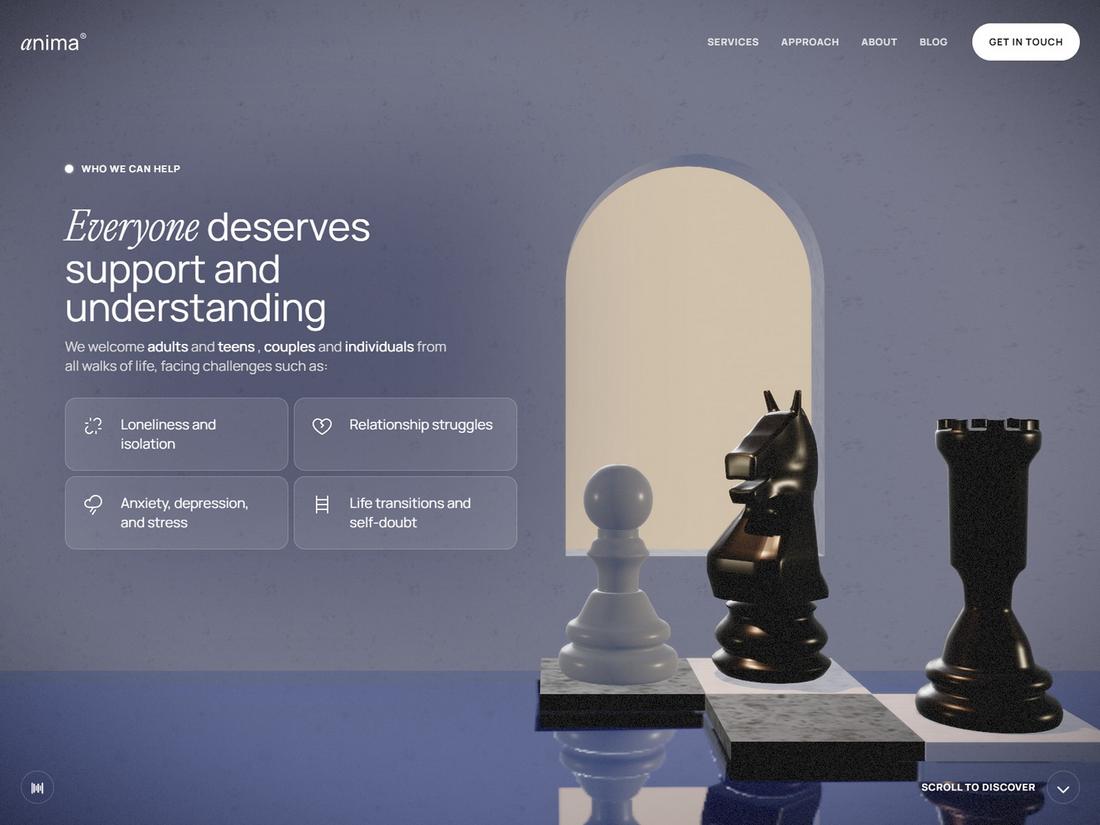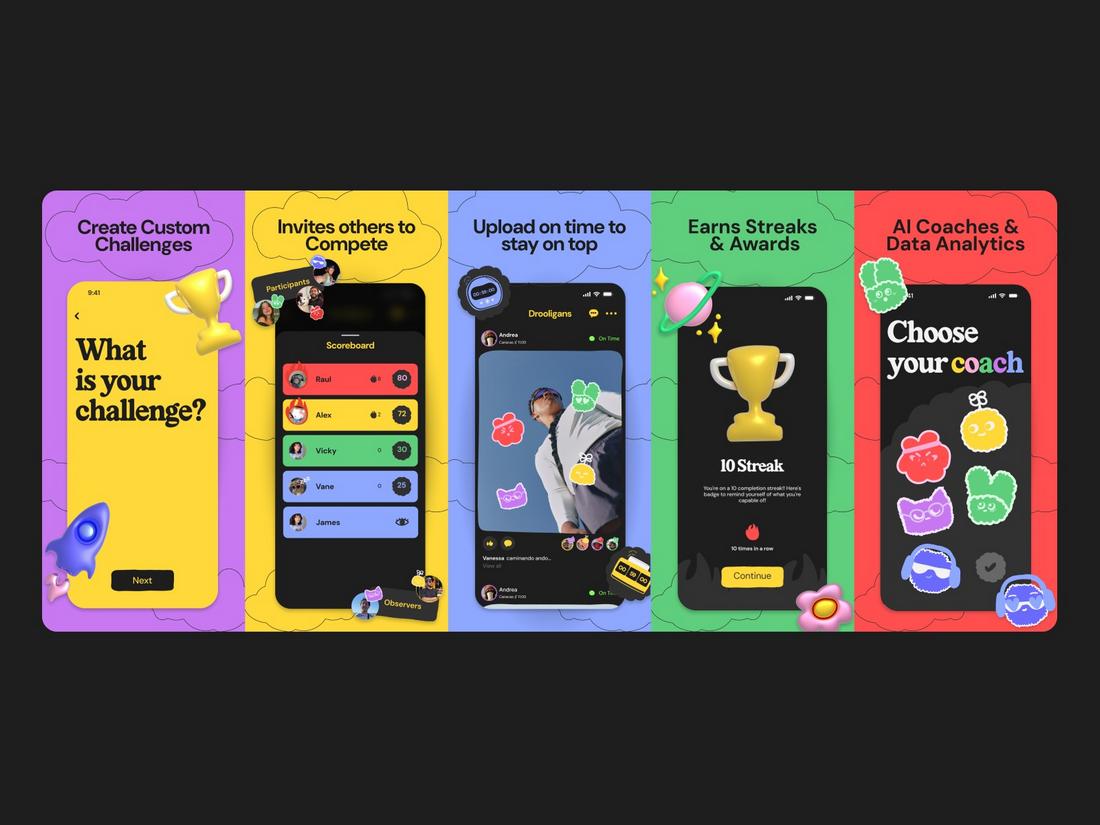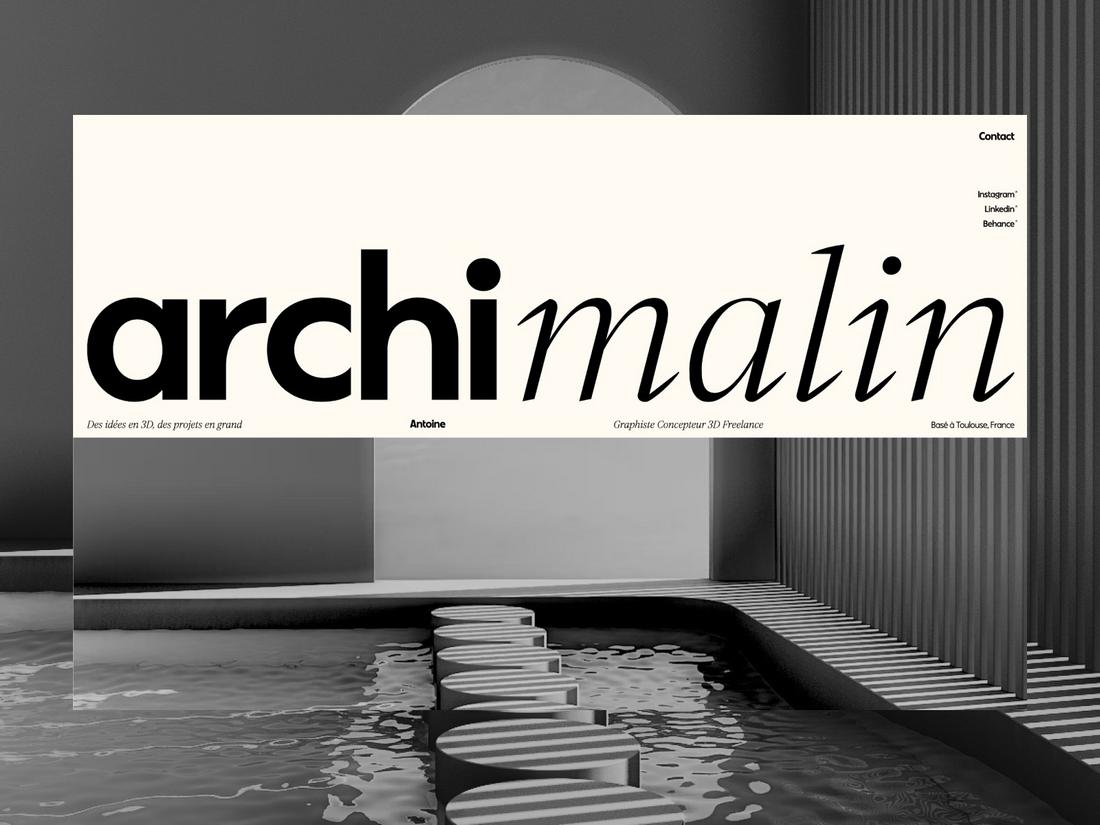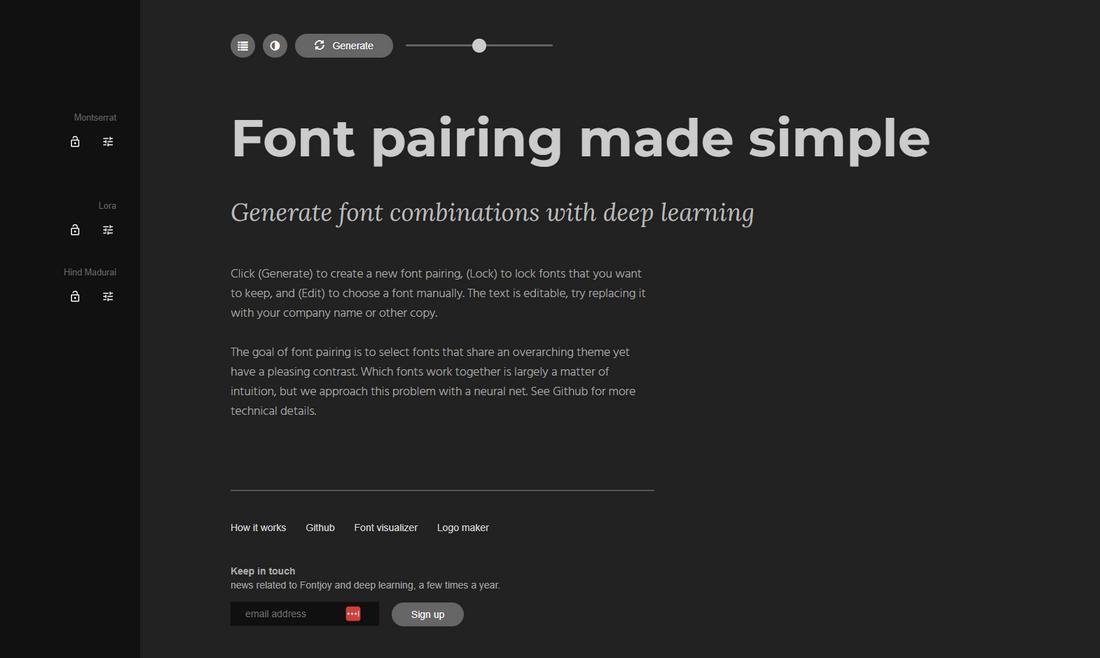
For digital-first brands, typography isn’t just a style choice, it’s a core part of how the brand communicates across screens.
The right font pairing can create hierarchy, improve readability, and define the brand’s tone without saying a word.
But with so many fonts to choose from, combining them effectively can be tricky.
Whether you’re building a design system, creating social content, or launching a responsive website, strong font pairing gives your visuals clarity and consistency.
In this guide, we’ll explore practical font pairing techniques to help digital-first brands look sharp, readable, and uniquely original.
Why Font Pairing Matters in the Digital Space
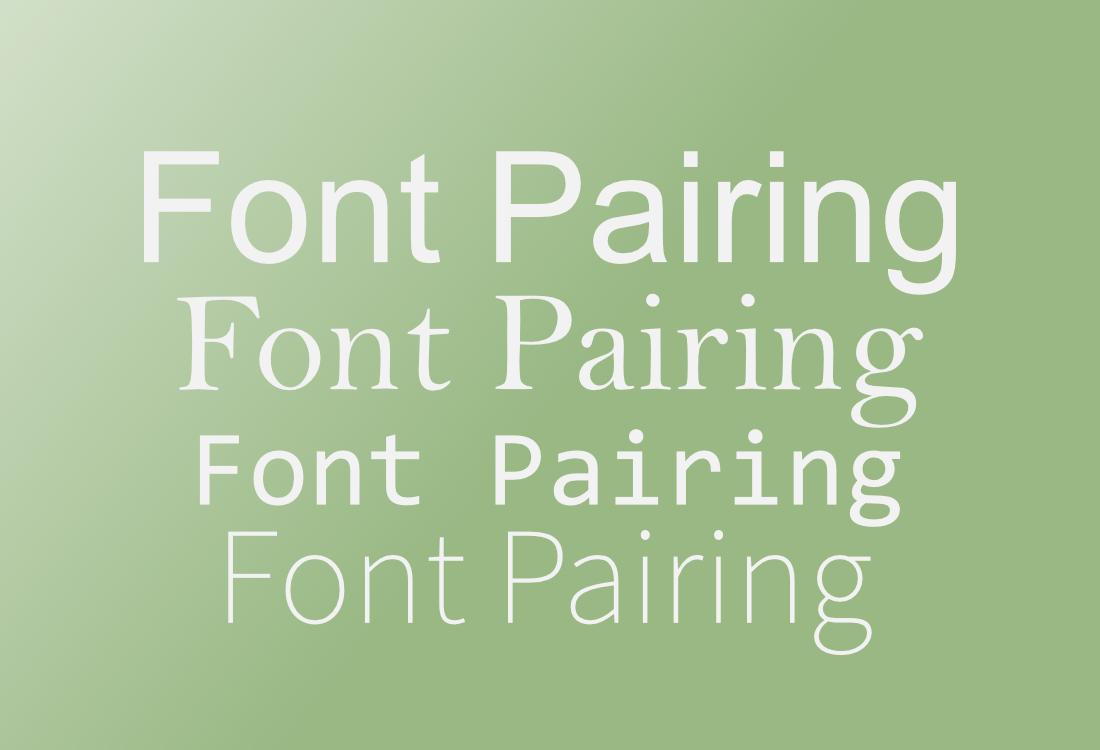
Digital-first brands rely on type to do a lot of heavy lifting, often more than traditional print-focused brands.
Text has to be readable on different screen sizes, responsive within layouts, and optimized for both quick scanning and longer reads.
Over 70% of global brands have invested in custom font creation for unique branding.
Good font pairing can:
- Guide users through content with a clear visual hierarchy
- Help users identify brand voice and personality at a glance
- Ensure consistency across multiple platforms (web, mobile, social, etc.)
- Reduce visual clutter and improve user experience
That’s why choosing fonts that not only look good together but also perform well on screens is essential.
Start with Function, Then Build Style
Before jumping into aesthetics, start by thinking about function.
What is each font doing? Is it used for headlines, body copy, buttons, or calls-to-action?
In most digital-first settings, you’ll want to pair at least two roles: a display font for emphasis and a body font for readability.
A good approach is:
- Primary font: used for headlines, hero text, and brand-defining elements. This font can be more expressive or stylized.
- Secondary font: used for body text, UI labels, or paragraphs. It should be simple, highly legible, and perform well at smaller sizes.
For example, pairing a bold serif for headlines with a clean sans-serif for body copy often creates a modern and balanced feel.
Pair Fonts with Clear Contrast
Contrast is key to a successful font pairing. Fonts that are too similar may clash or feel redundant.
Instead, look for differences in style, weight, proportion, or texture. This contrast helps users understand the hierarchy and adds visual interest.
Some reliable contrast strategies include:
- Serif + Sans-Serif: A timeless combination, where one font adds character and the other keeps things clean and readable.
- Bold + Light: Using a heavier weight for headlines and a lighter weight for body copy of the same family can create a refined hierarchy.
- Geometric + Humanist: Mixing a precise, structured font with a softer, more organic one brings balance and personality to your design.
The key is making sure the contrast feels intentional, not random.
Use Font Families That Offer Versatility
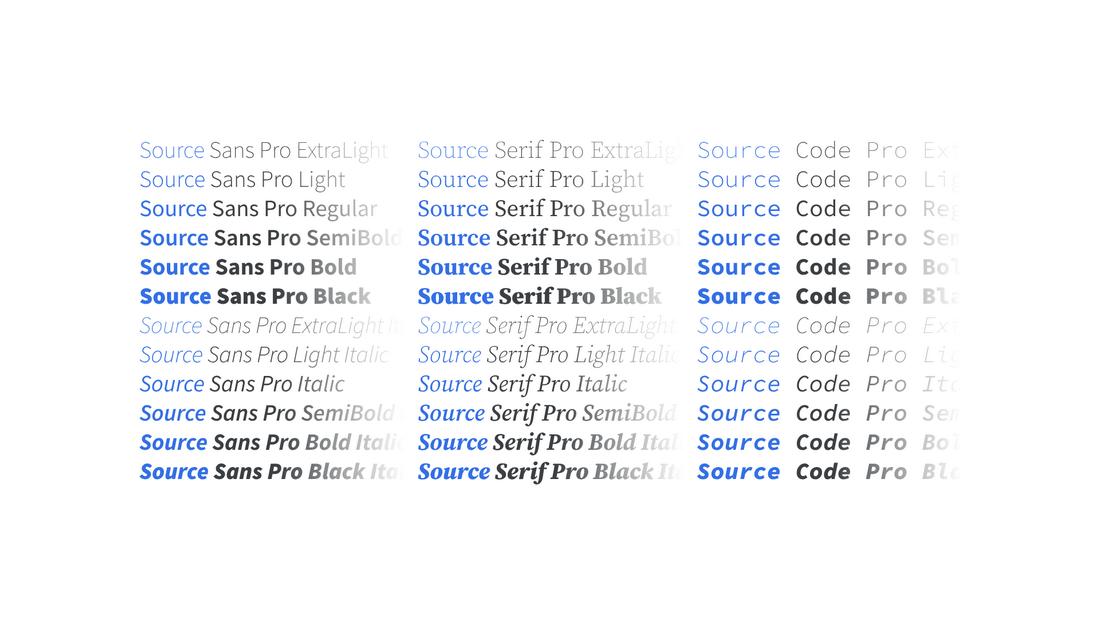
If you want a more cohesive look, using different weights and styles within the same font family can be just as effective as mixing two separate fonts.
Many modern typefaces are built as “superfamilies” with a wide range of weights, italics, and even serif/sans-serif versions.
Fonts like Inter, IBM Plex, Roboto, and Source Sans offer enough range to create hierarchy without introducing a second font.
This can be helpful in digital systems where consistency across UI components is a priority.
Use Combination Fonts
Combination fonts are font duos or bundled type families that include two matching fonts designed to work together.
These are often a display or script font paired with a clean sans-serif or serif companion.
Combination fonts take the guesswork out of pairing because the styles are built to complement each other in tone, weight, and spacing.
They’re especially helpful for designers working on brand kits, social graphics, or websites where visual consistency matters but time is limited.
You’ll often find these pairings labeled as “font duos” on marketplaces like Creative Market or Envato Elements.
Some include a decorative headline font and a minimalist body font, while others offer a mix of serif and sans-serif styles with aligned sizing and rhythm.
Consider Legibility on Screens
Not all fonts are designed with digital performance in mind. Choose fonts that are hinting-optimized or designed specifically for screen use.
Look for features like open counters, consistent stroke widths, and clear letterforms—especially for body text.
Avoid fonts that rely on thin lines, high contrast, or tight spacing if they’ll be used on mobile or small displays.
Testing fonts at various sizes and weights across screen types is always a good idea before making a final choice.
Match the Font’s Personality to the Brand
It’s great for finding creative, ready-to-use combos you can adapt to your own brand or project.
Conclusion
Font pairing isn’t just about choosing two fonts that “look good together”; it’s about creating a system that supports your content, reinforces your brand, and feels seamless across digital experiences.
By focusing on contrast, clarity, and consistency, digital-first brands can create typography that not only looks polished but also performs beautifully in every pixel.